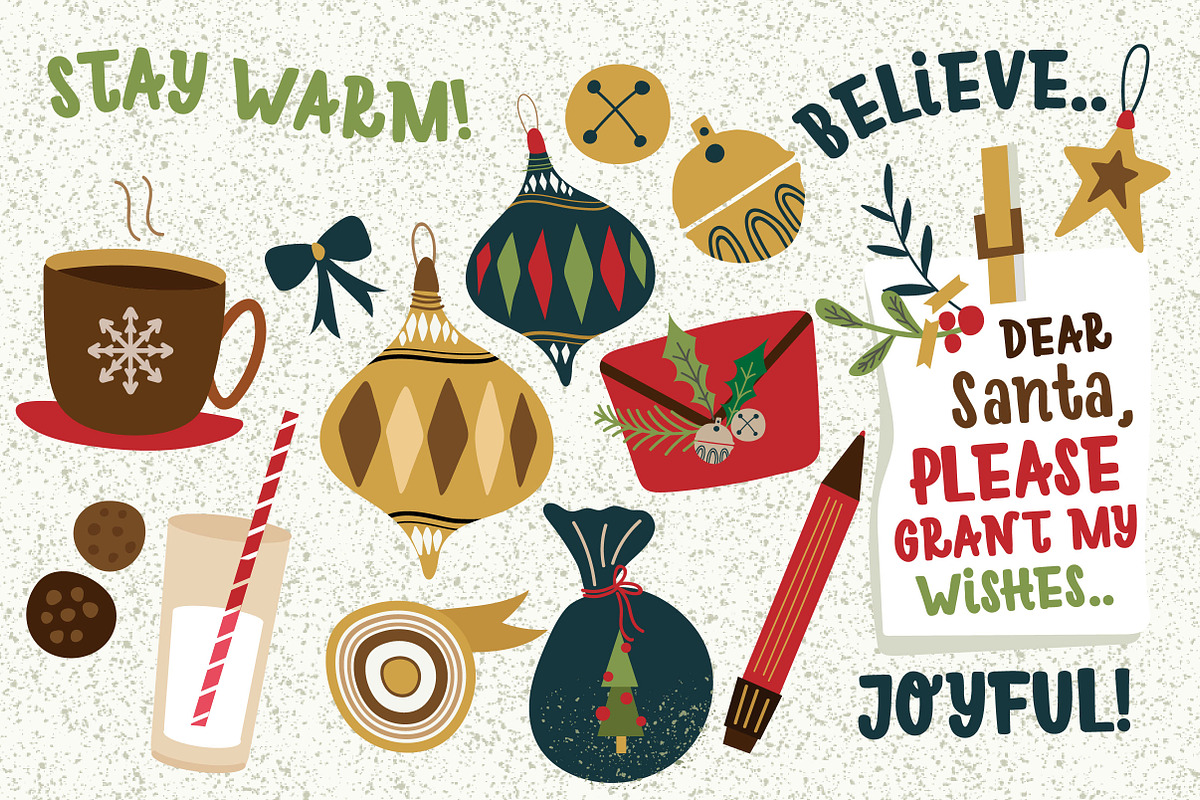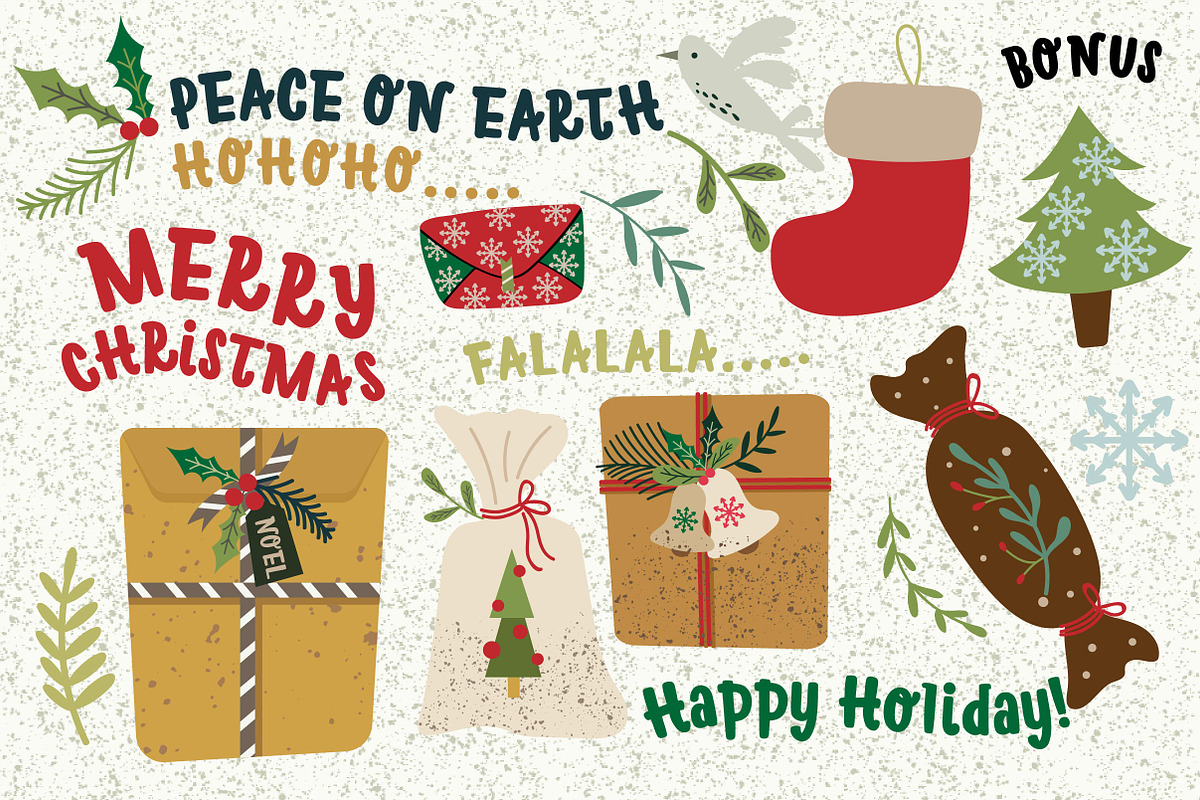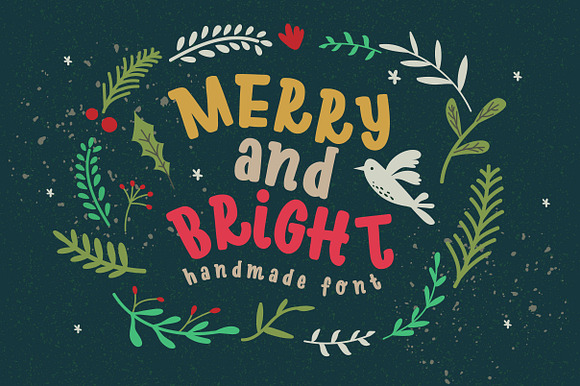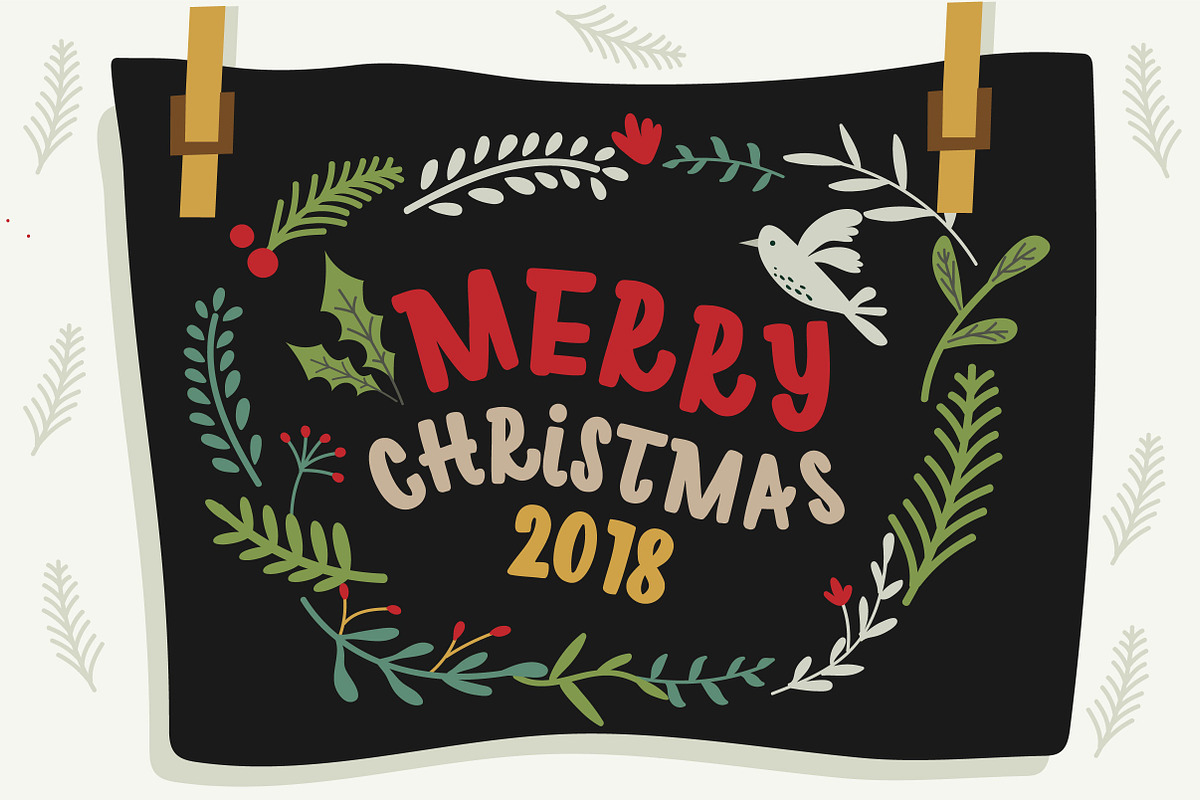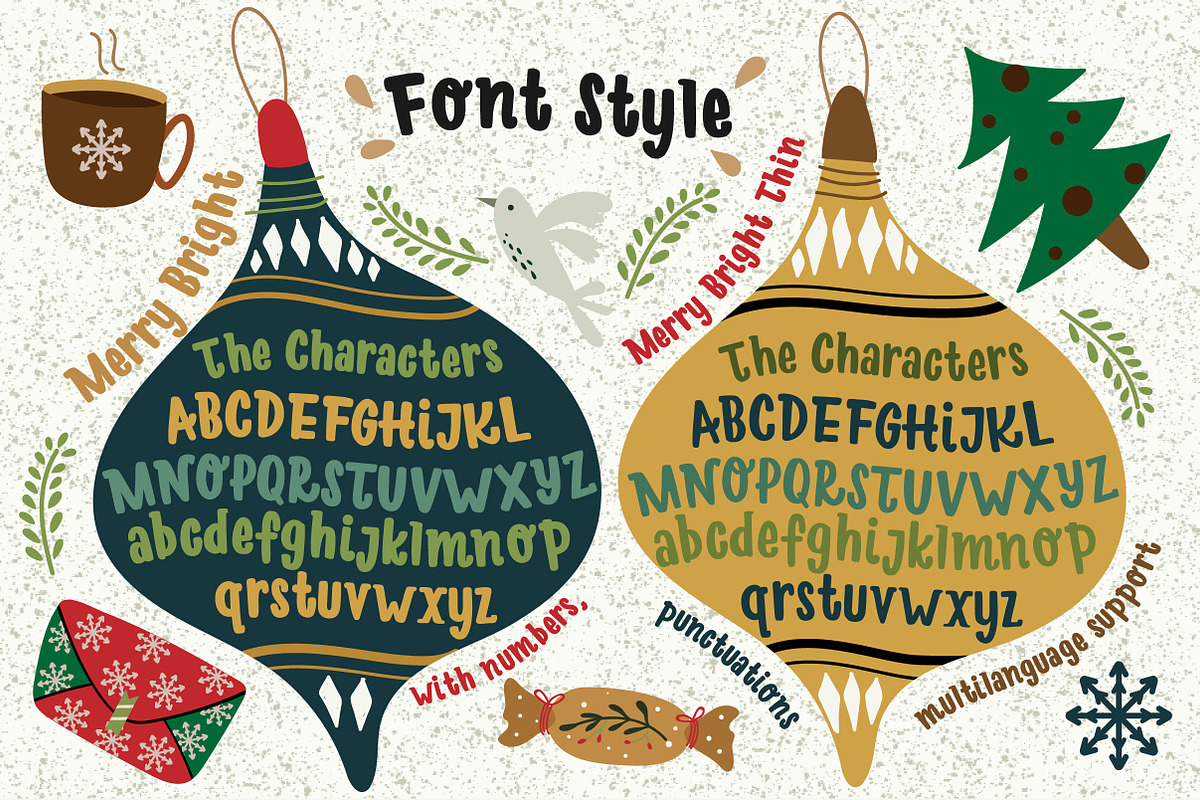
Merry Bright Typeface
Hi! This is Merry Bright, a handmade typeface perfect for Christmas postcard, title, poster, text book and many more. It also comes with cute illustrations as bonus.
Merry Bright Typeface by caocastudio fits naturally into Branding, posters, packaging, typography.